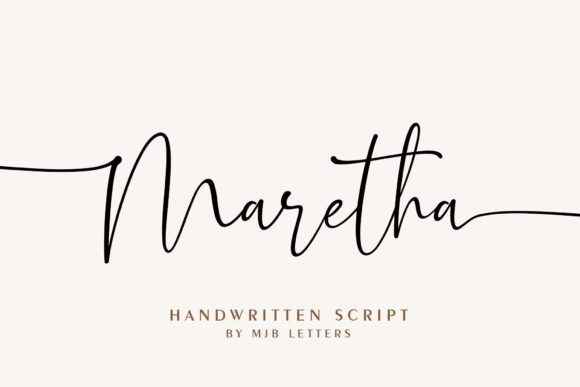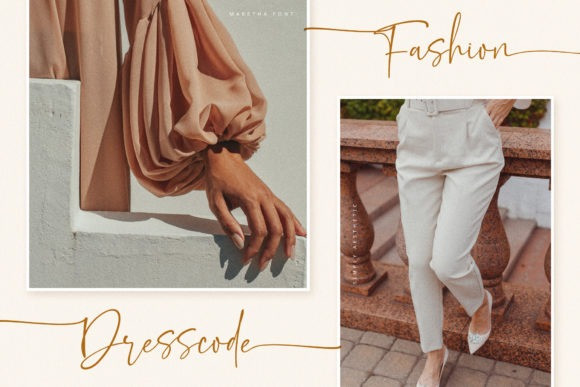
Maretha Font
Maretha is a classy handwritten script. This font is perfect for branding designS, packaging, logo designS, watermarkS, fashion projects, wedding invites, and more. Maretha is PUA encoded which means you can access all of the glyphs and swashes with ease!